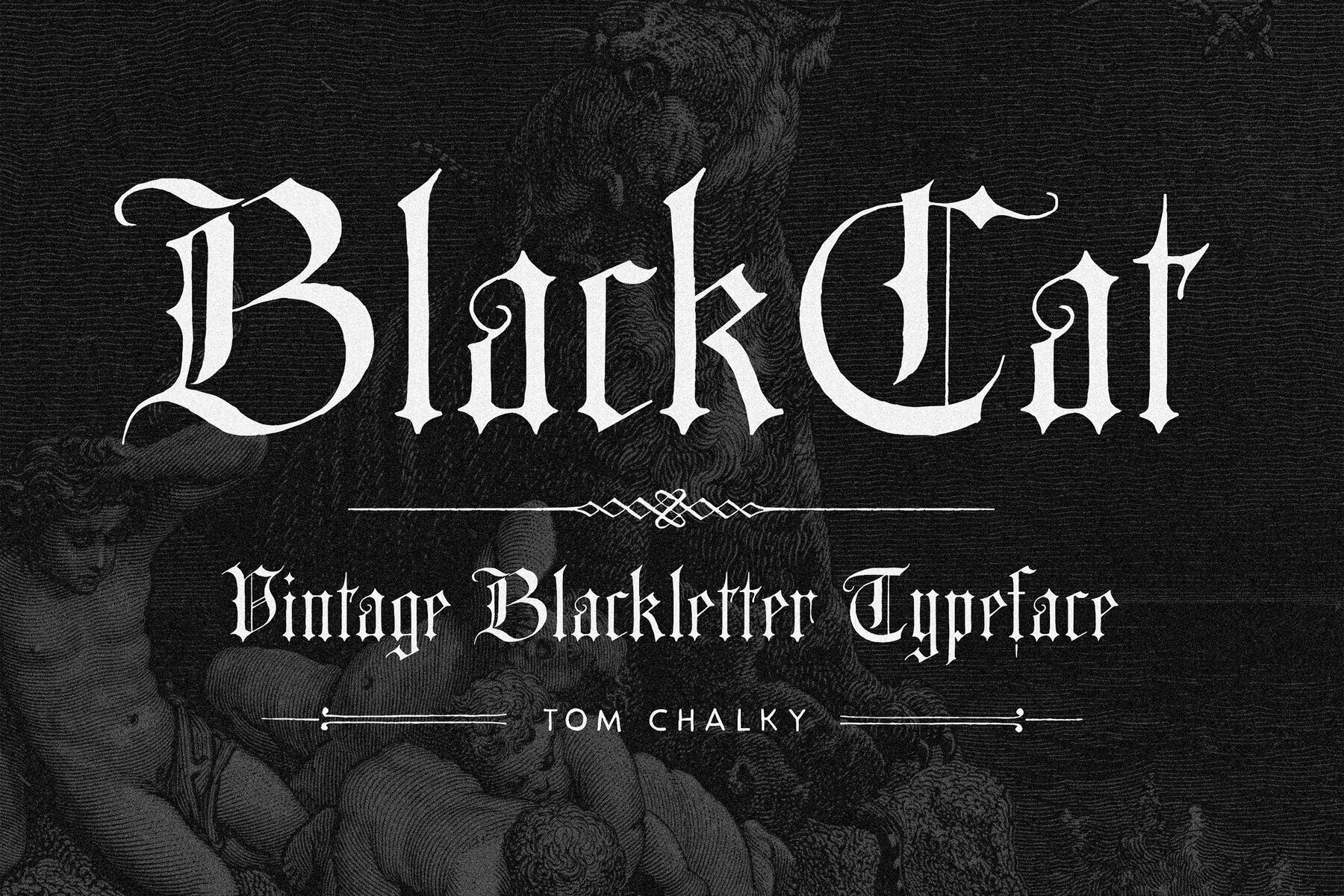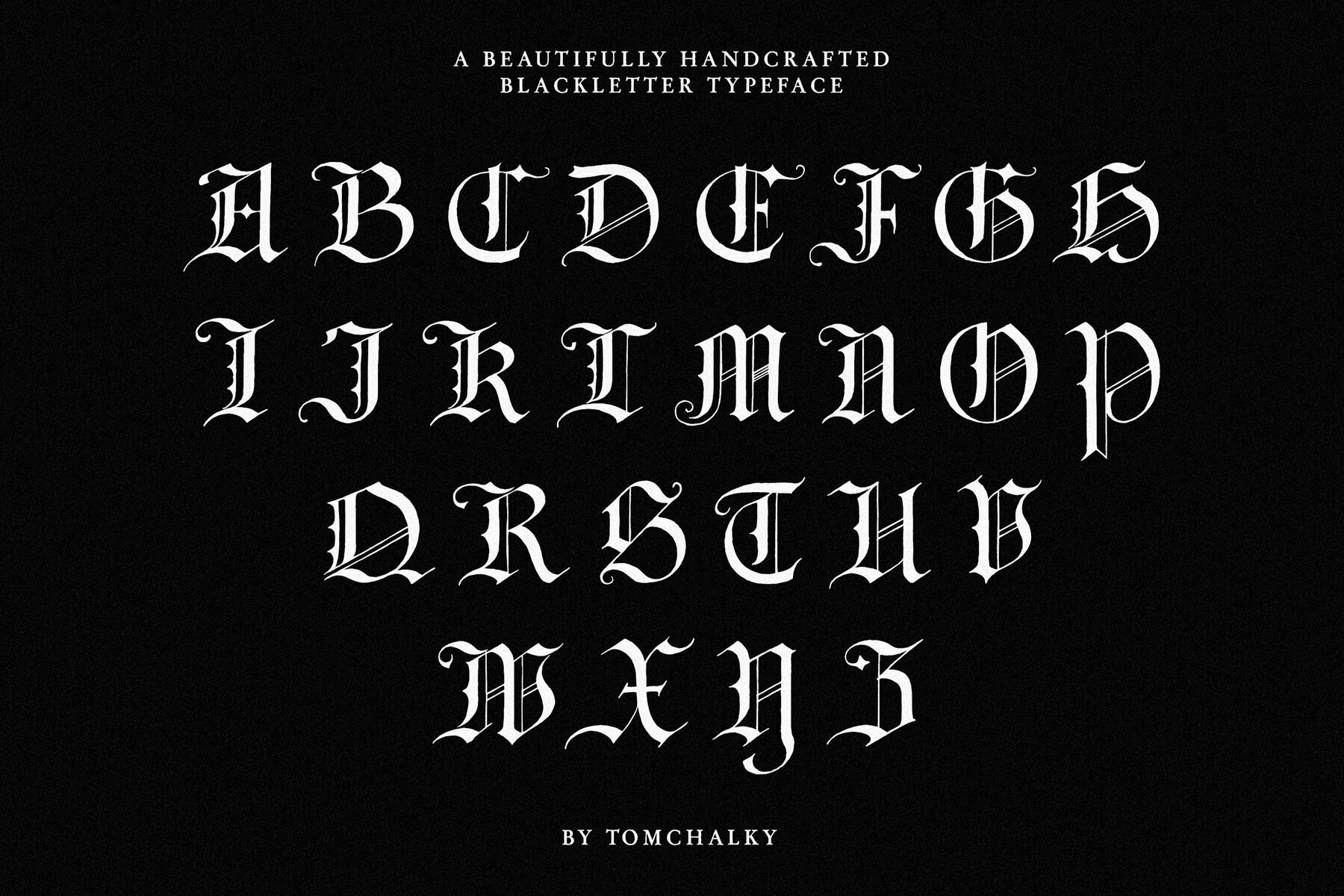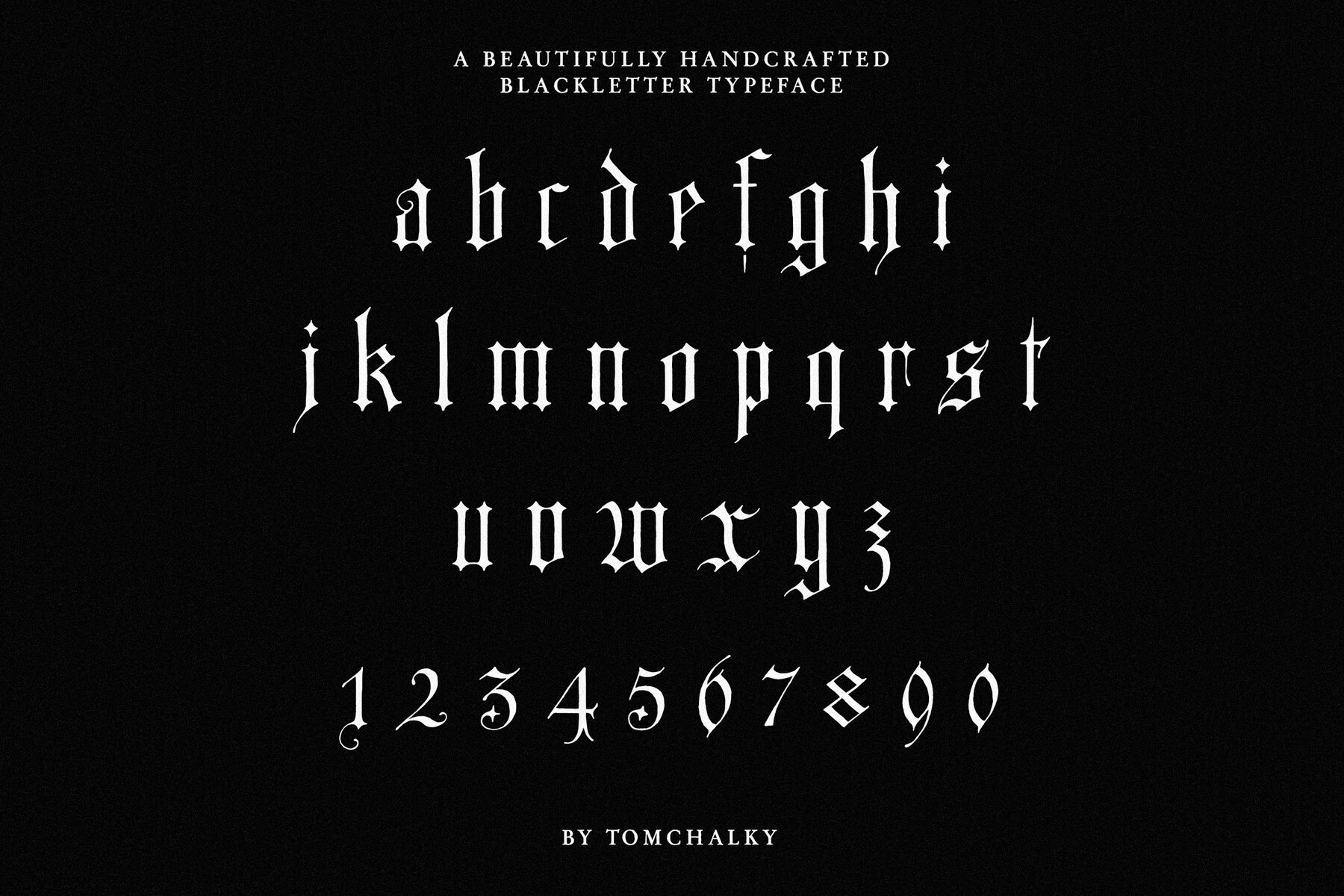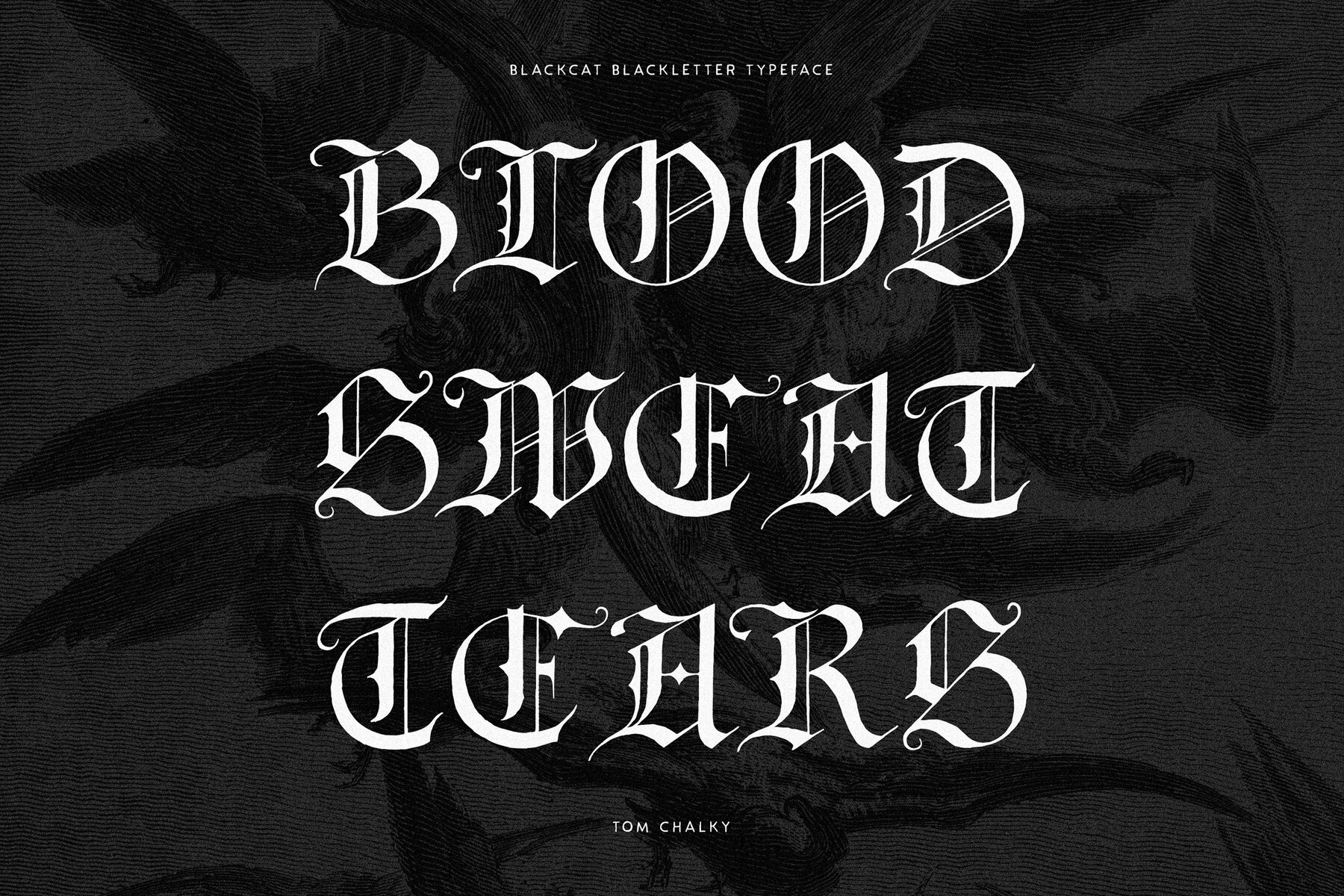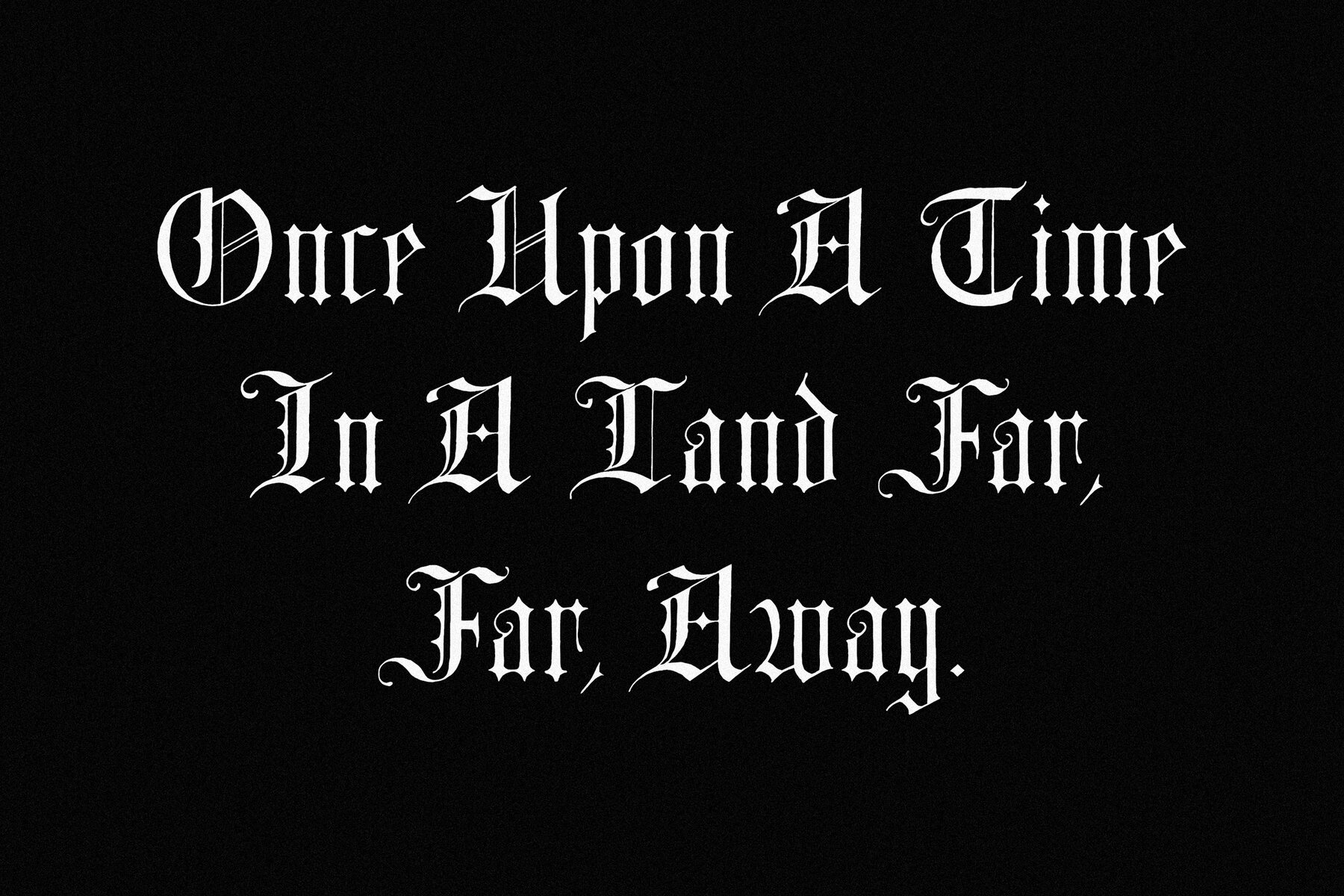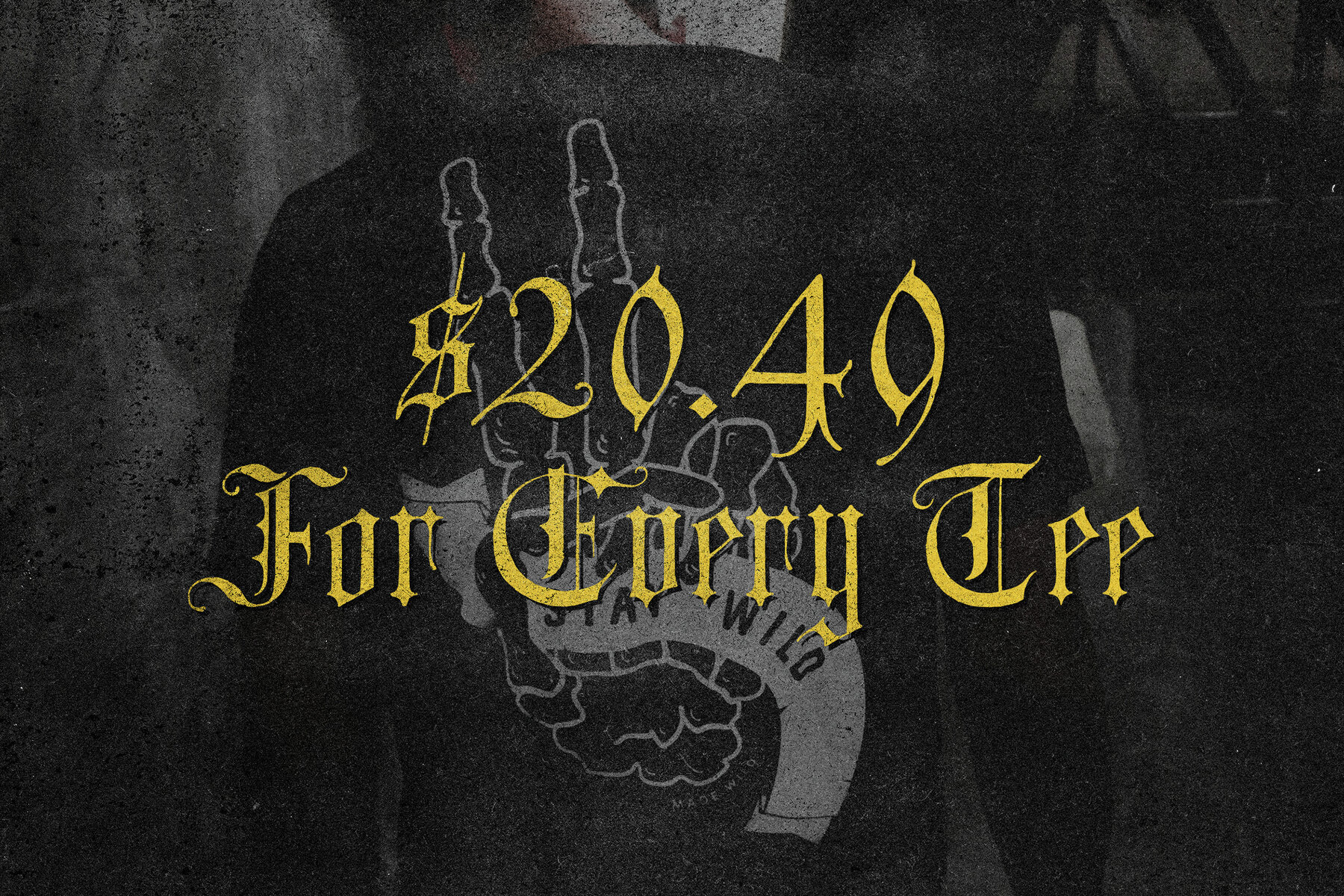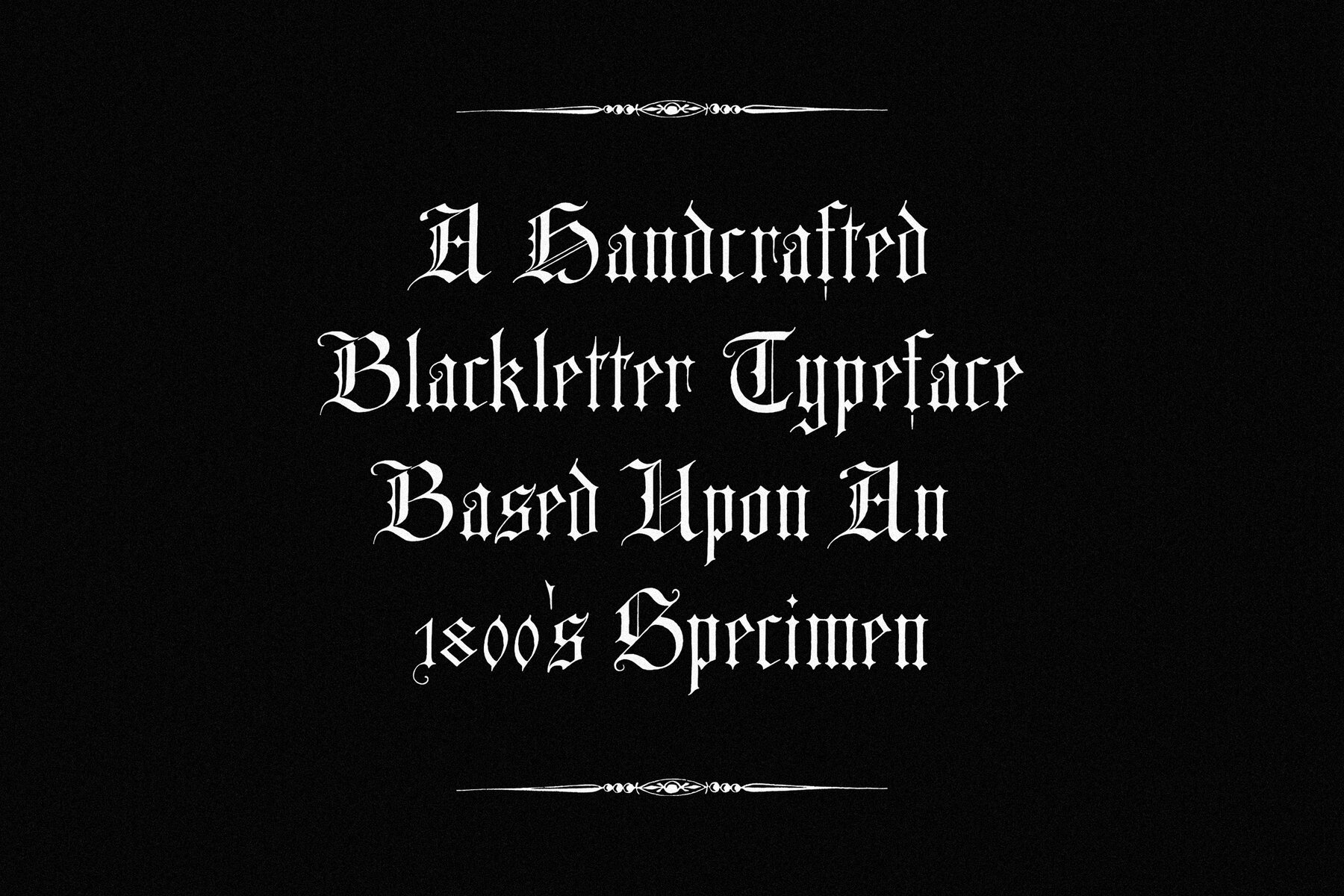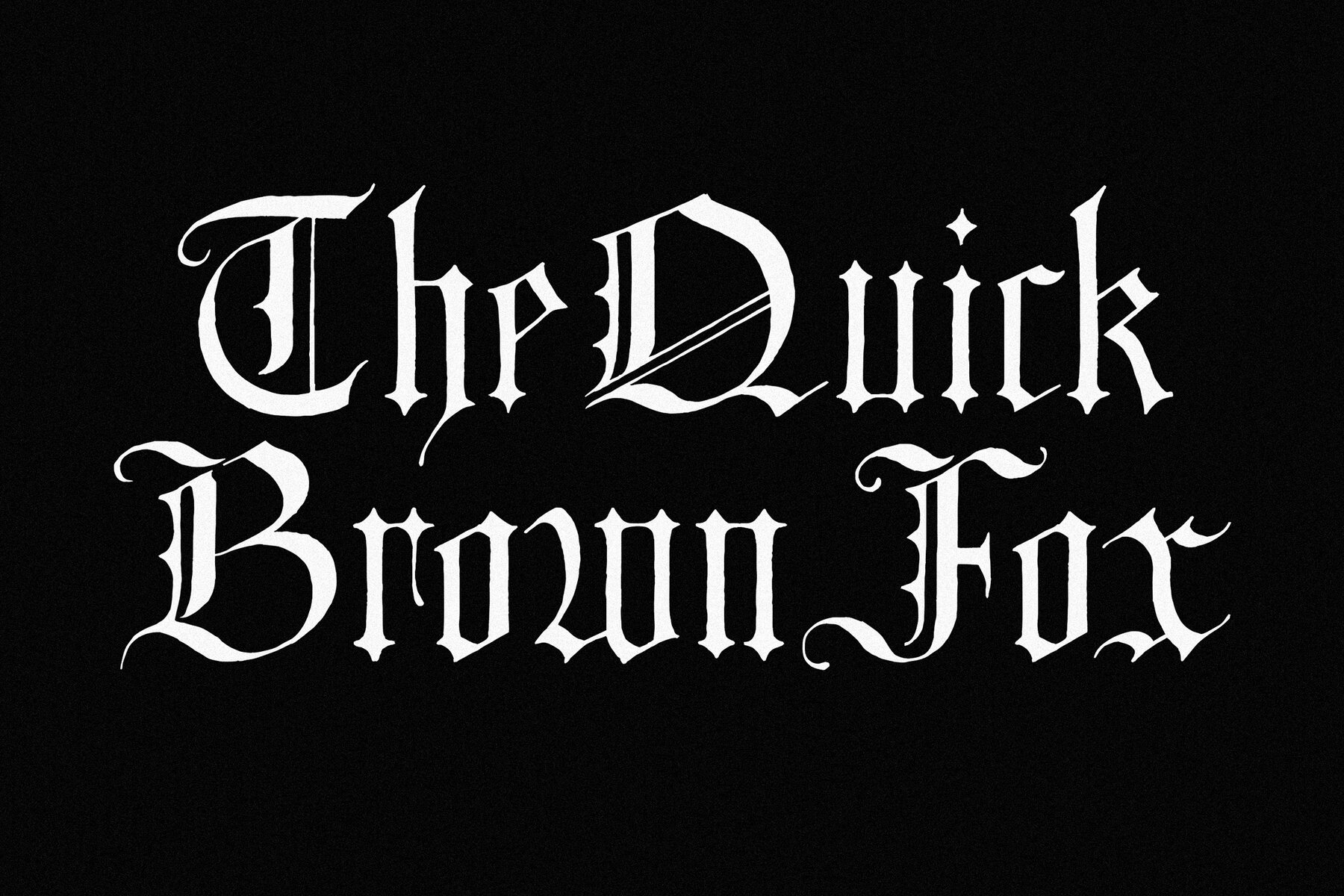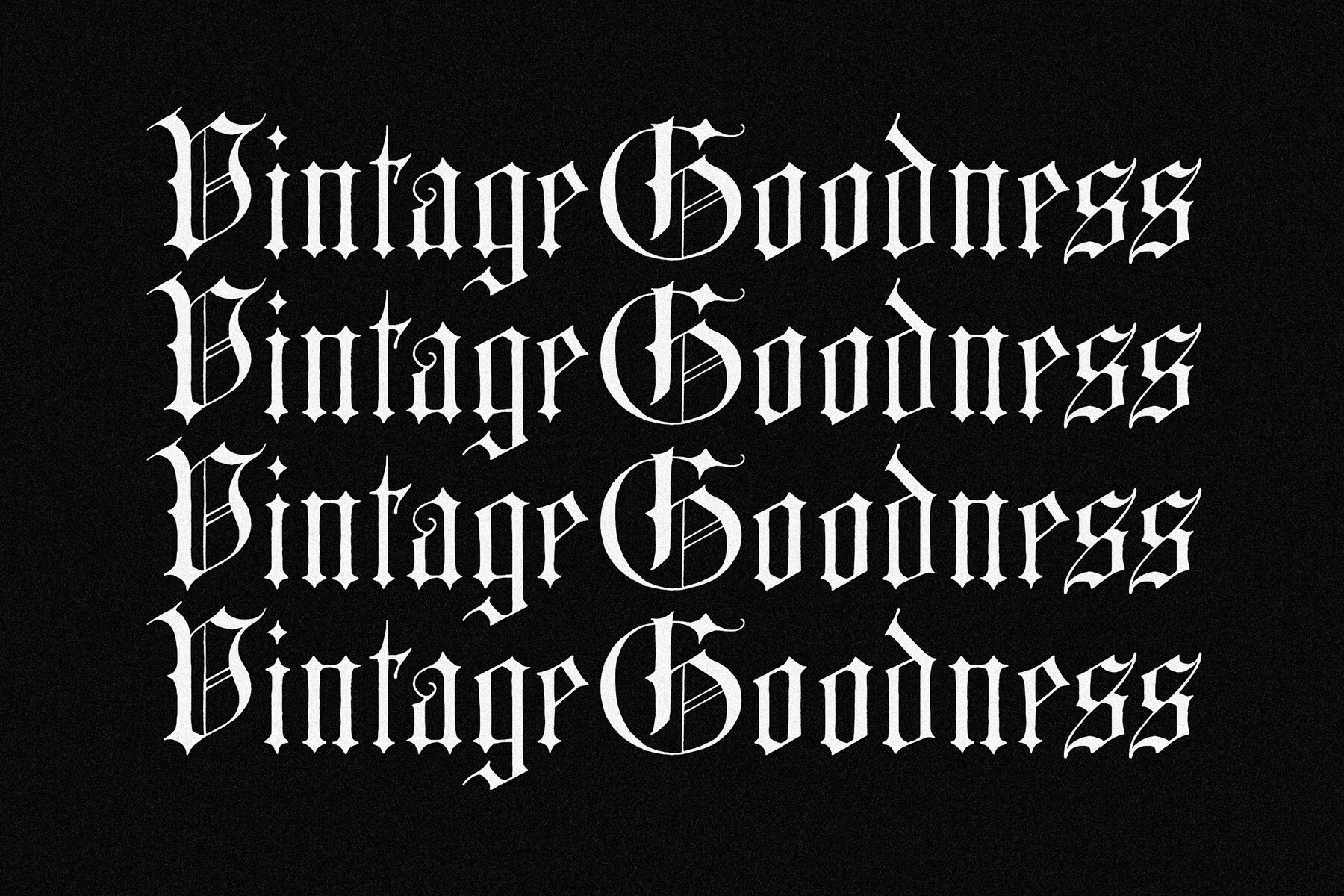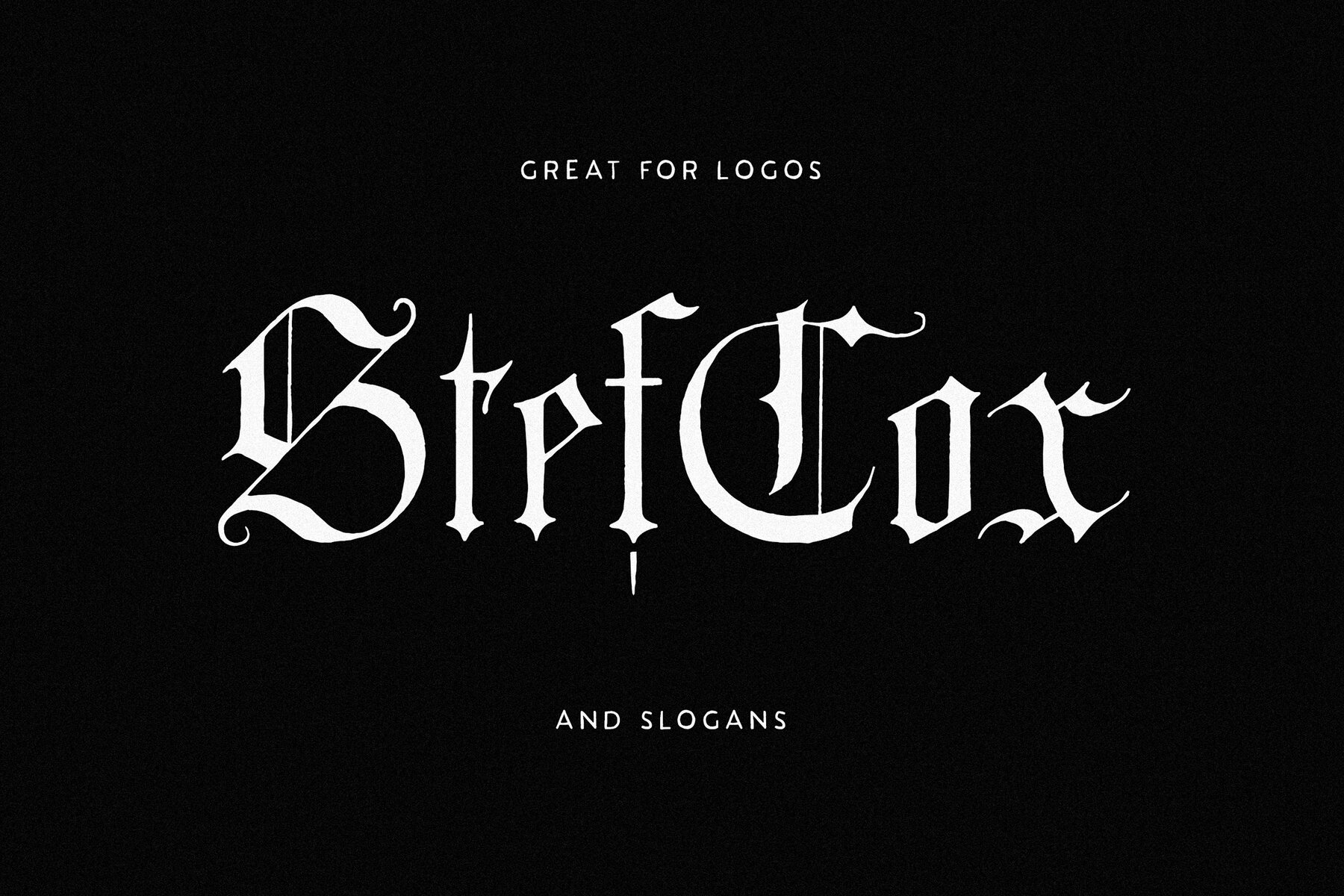
TC BlackCat Font
TC Blackcat Regular
Proudly Introducing BlackCat, an authentically Vintage Blackletter Font. Its design is based on a specimen from the 1800s that oozed that classic Blackletter style that is (I'm glad to see) making a glorious comeback! Quick Overview This project was a true joy to work on. As some of you may know, the other half of my design business is one that I run alongside my wife (Abbie) and includes collecting, restoring, and repurposing vintage illustrations. After getting my hands on some wonderful vintage typography specimens, I couldn't pass up the opportunity to make them into working typefaces. While the original prints contained very few glyphs and required plenty of custom work, I've tried to stay as true to the design as possible while creating the additional letters, numbers, and symbols.